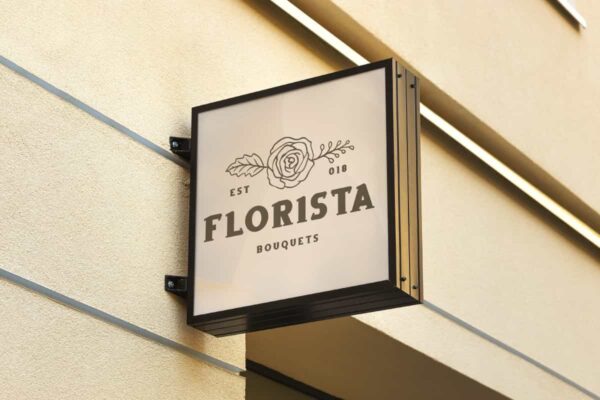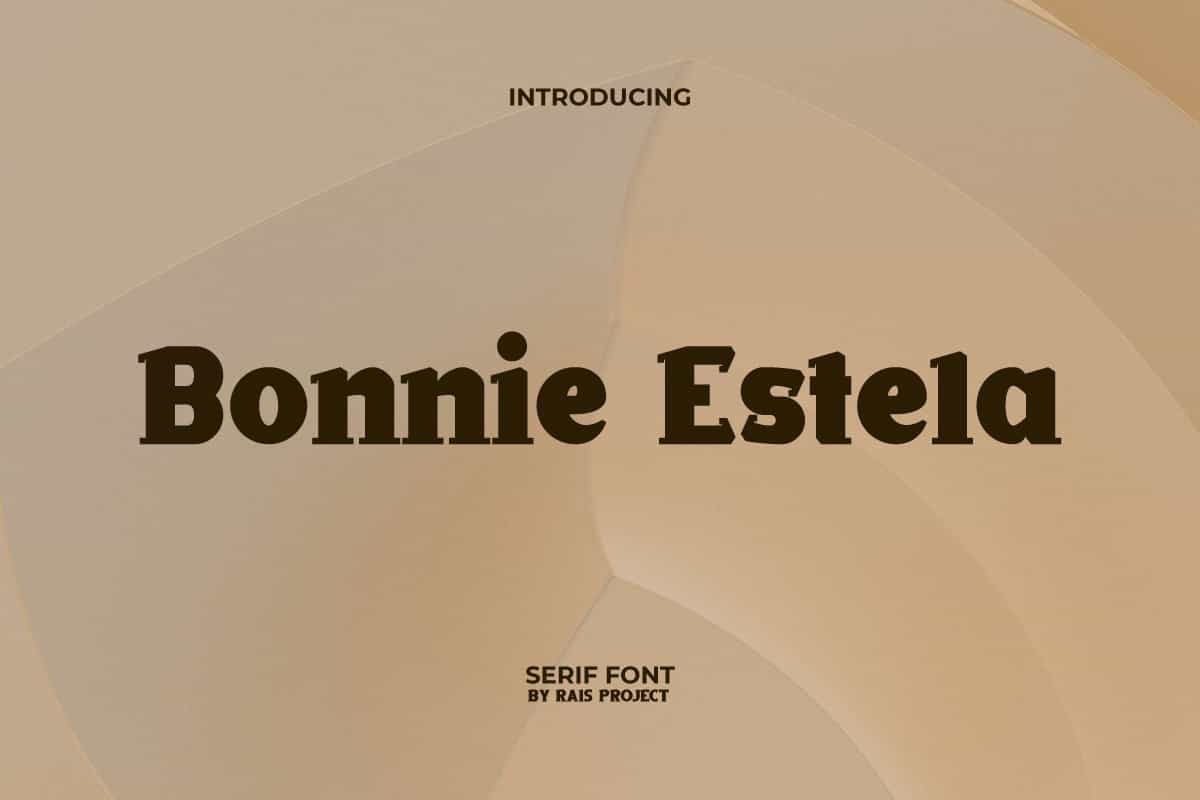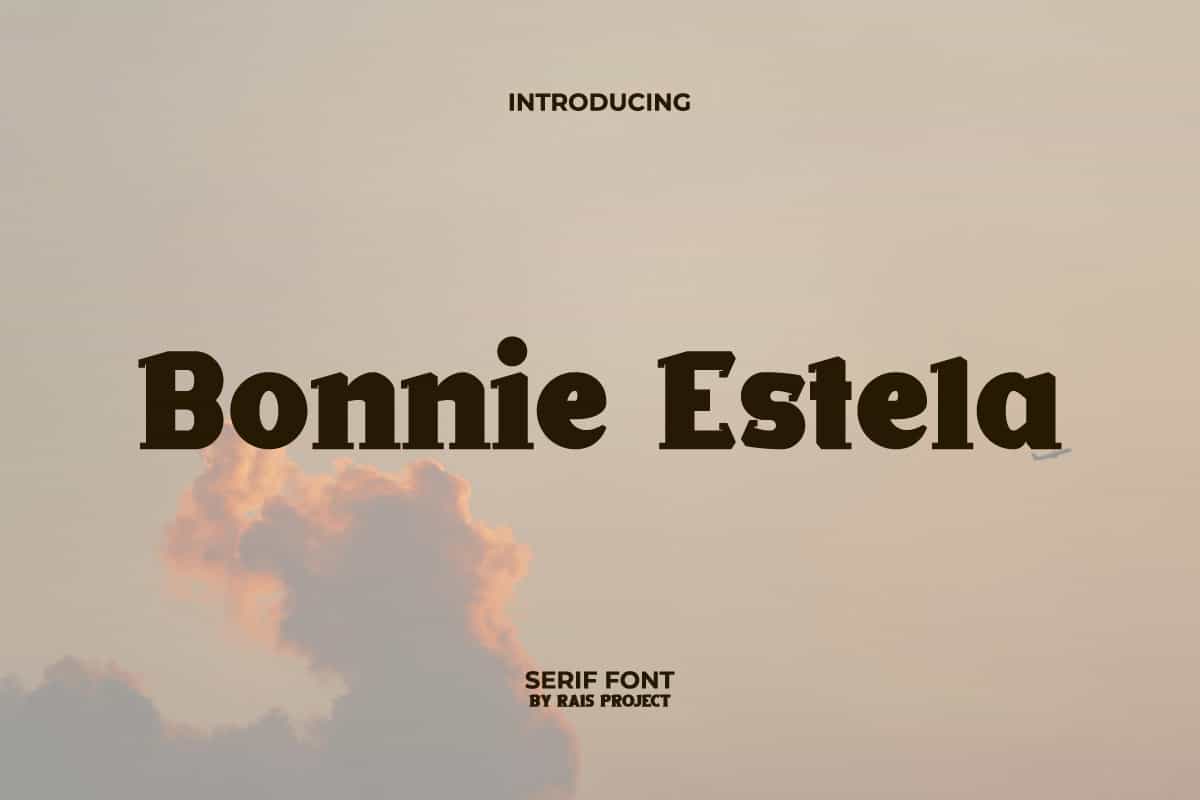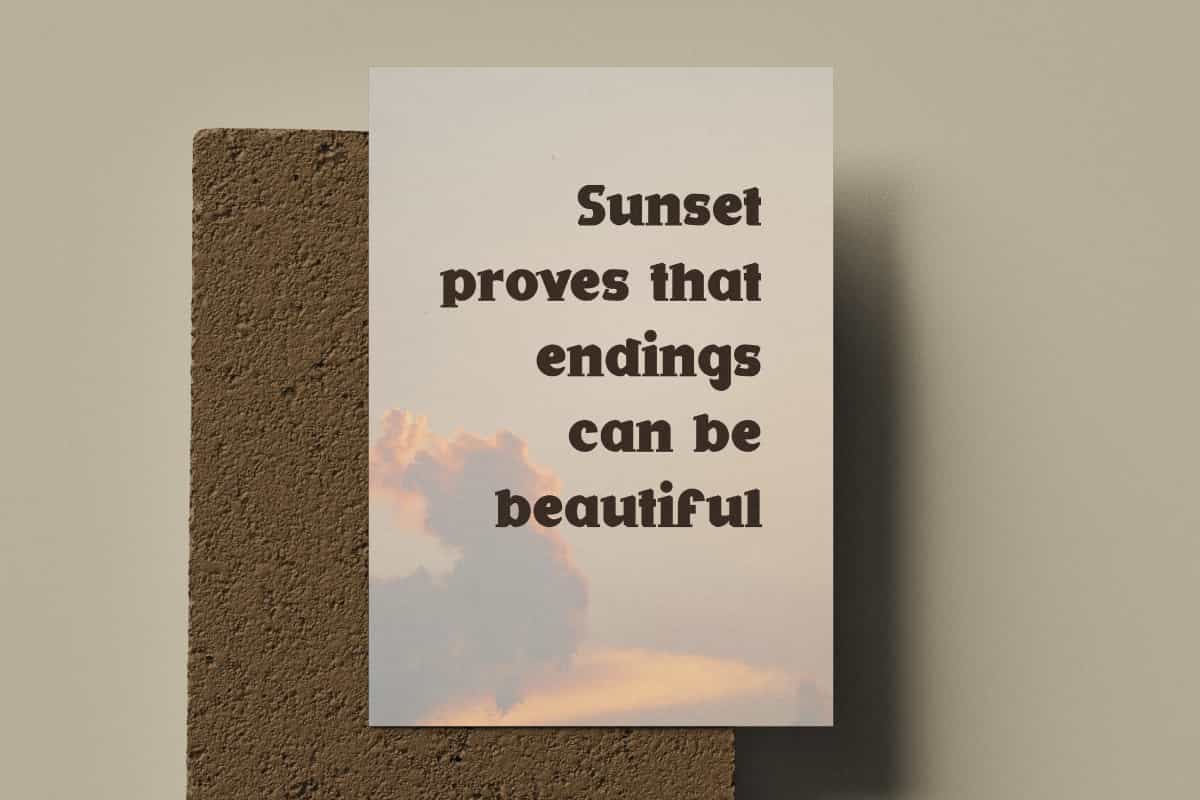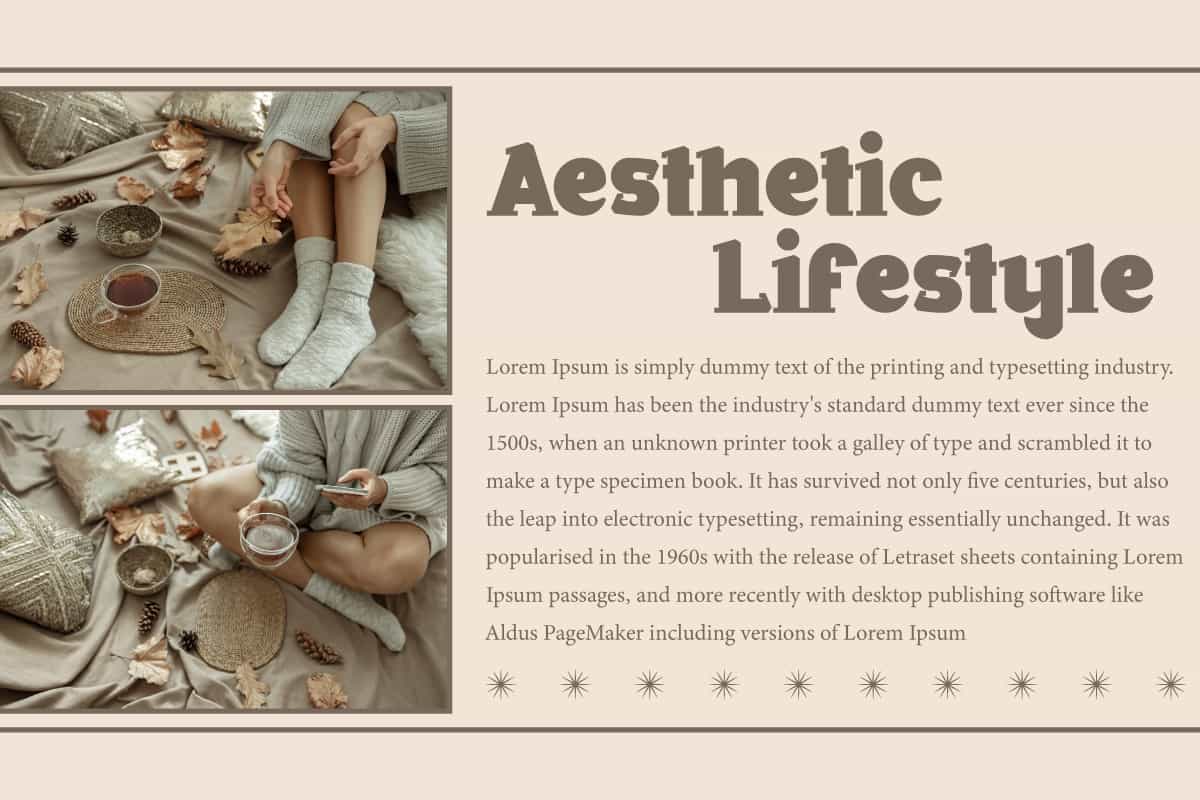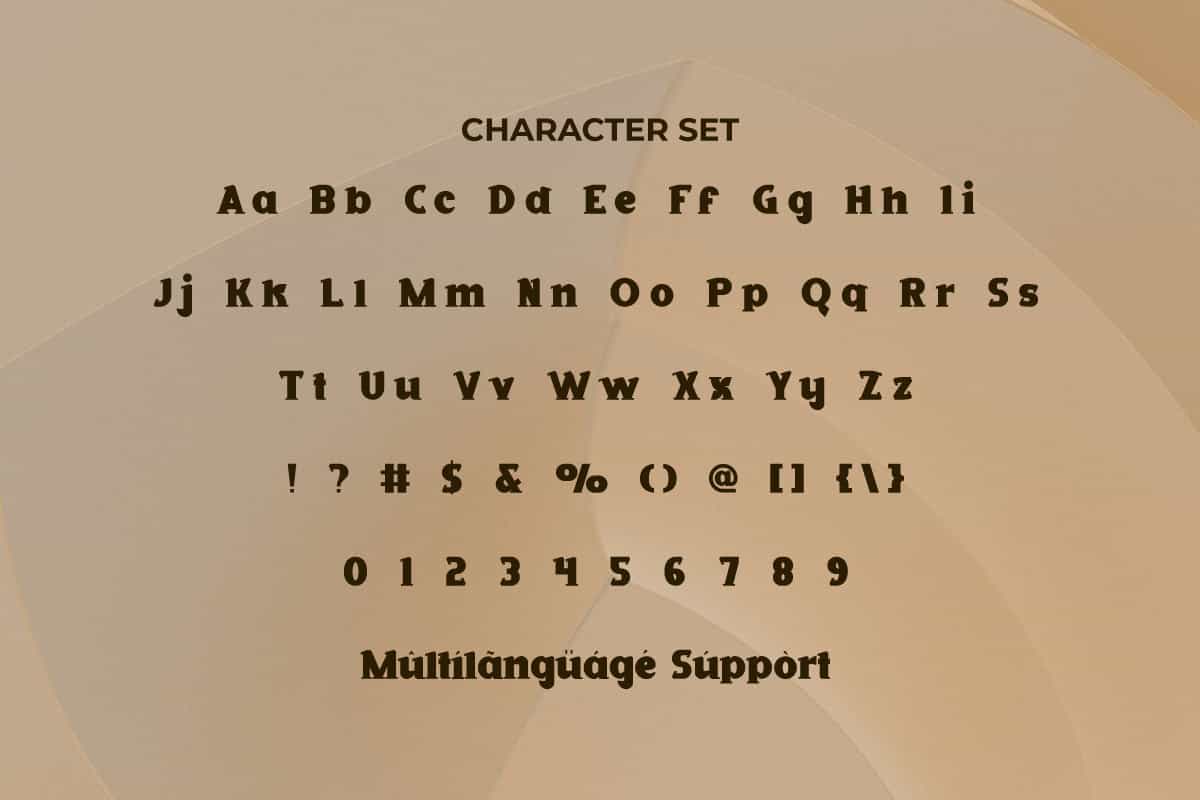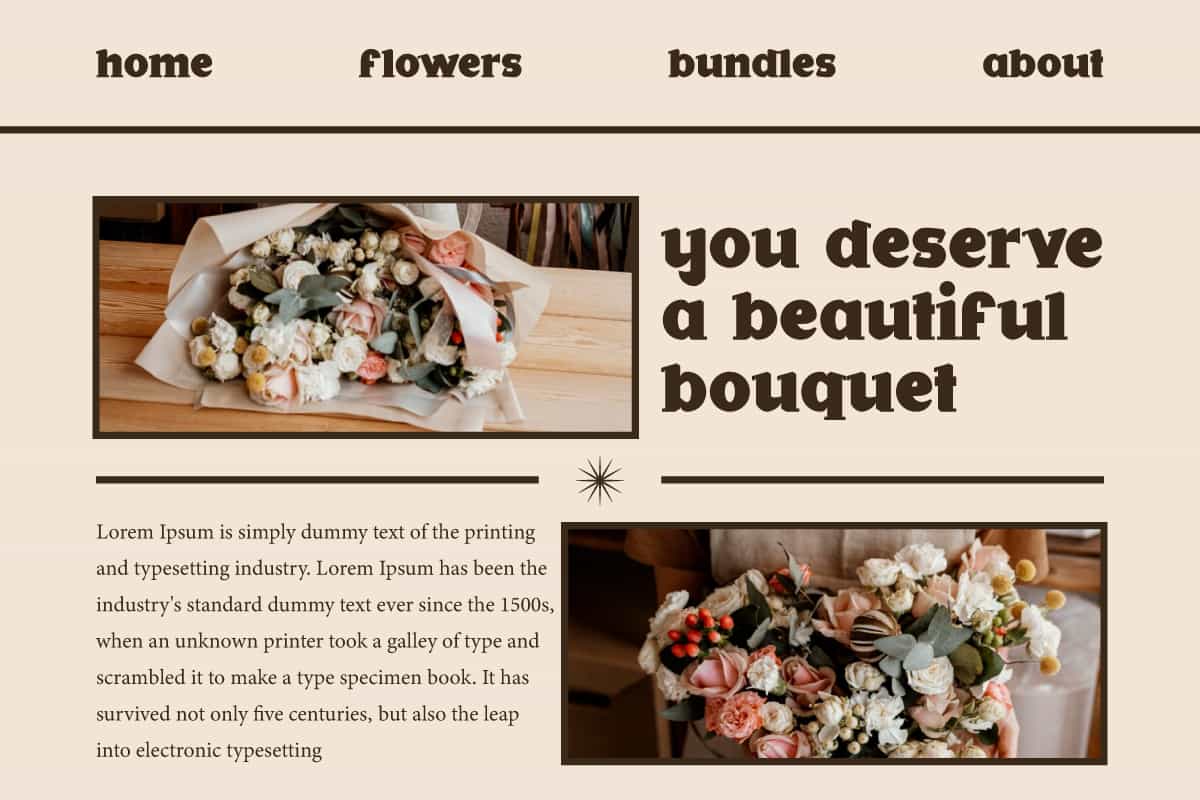
Bonnie Estela Font
Bonnie Estela Font is an adorable unique vintage style old serif display font. Try using this font to make your designs authentic!
Bonnie Estela Font is a stylish adorable unique old serif display font that have vintage vibe by RaisProject. This font has thick characters with sharp edges to making it attractive. It will look good on invitation, stationery, poster, custom design, product packaging, quotes, signage, brand image, advertisement, label, marketing material, website page, and more!
Introducing Bonnie Estela Display Font – a bold, elegant, and versatile typeface created to add sophistication and modern style to your designs. With its refined curves, artistic strokes, and unique letterforms, Bonnie Estela is the perfect choice for projects that demand both beauty and impact. From logos and branding to posters, invitations, packaging, and social media graphics, this font brings a timeless yet contemporary edge to your work.
Bonnie Estela Display Font is designed to balance creativity with professionalism. Its strong and stylish look makes it perfect for fashion branding, lifestyle campaigns, wedding stationery, editorial layouts, and chic promotional materials. Whether you are designing bold headlines, eye-catching advertisements, or stylish merchandise, Bonnie Estela ensures your creations stand out with elegance and confidence.
Bonnie Estela Display Font includes a full set of ALL CAPS for Uppercase and Lowercase Letters, Numerals, and large range of Punctuation. This beautiful font will be suitable for various industries, such as fashion, jewelry, cafe, event or wedding organizer, photography, printing, publishing, etc.